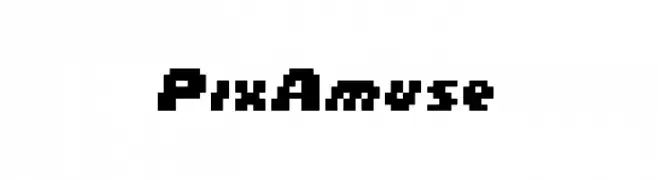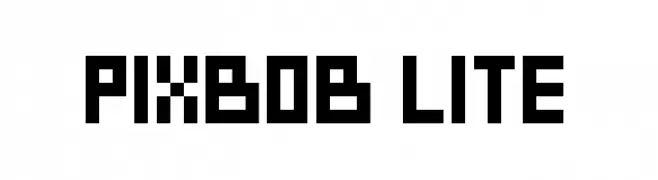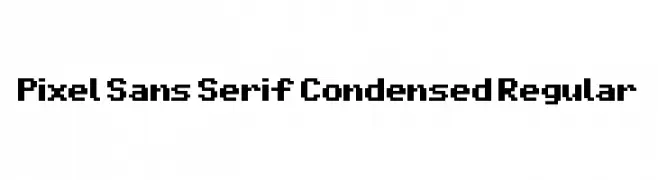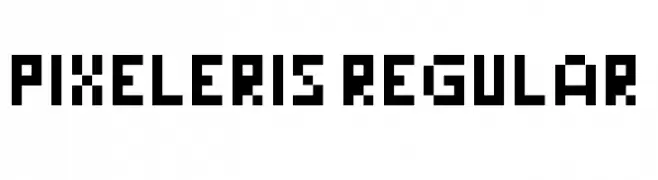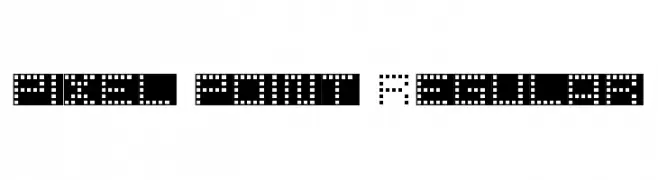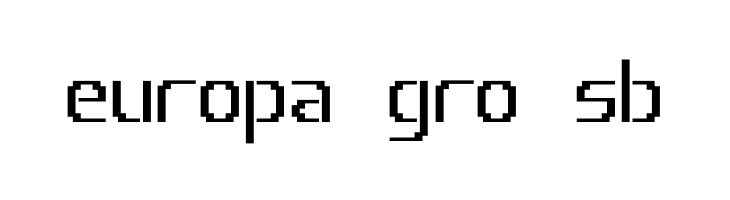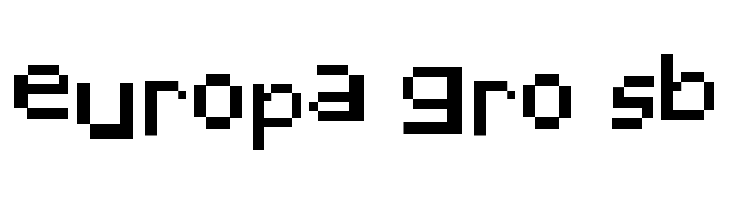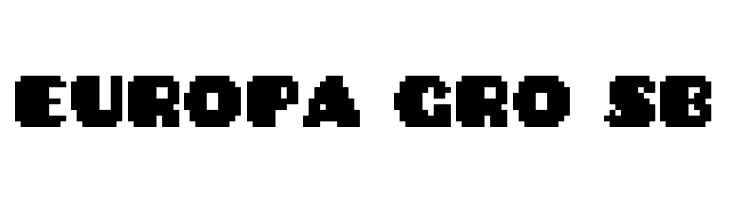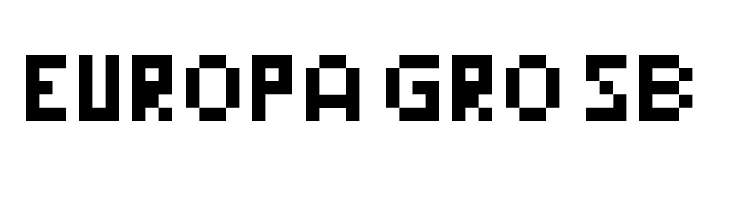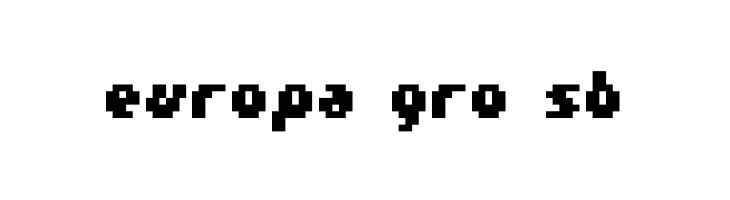
A bold, pixelated font with a retro digital aesthetic.
A pixelated, tech-inspired font with a retro digital aesthetic.
A pixelated, retro-style font inspired by early digital displays.
A bold, pixelated font with a retro digital aesthetic.
A pixelated, retro-style font with a digital display aesthetic.
A bold, pixelated font inspired by retro digital displays.
A pixelated, blocky font with a retro digital aesthetic.
A pixelated, retro-style font with a blocky, digital appearance.
A bold, pixelated font with a retro digital aesthetic.
A pixelated, sans-serif font with a digital, retro style.